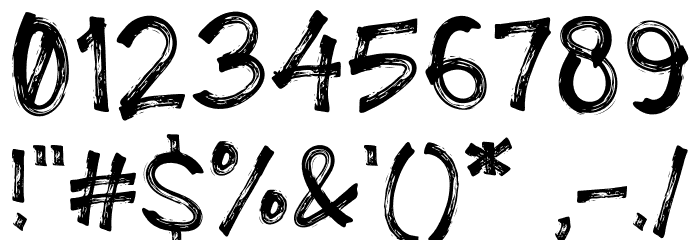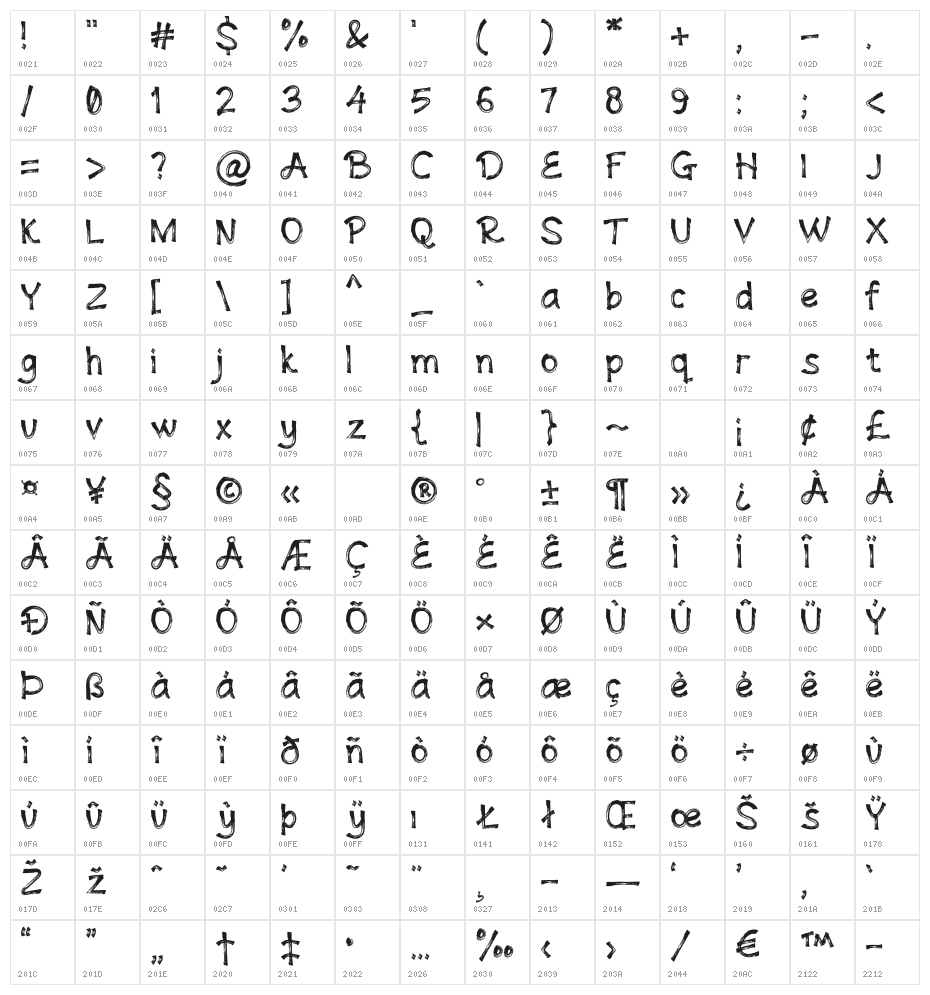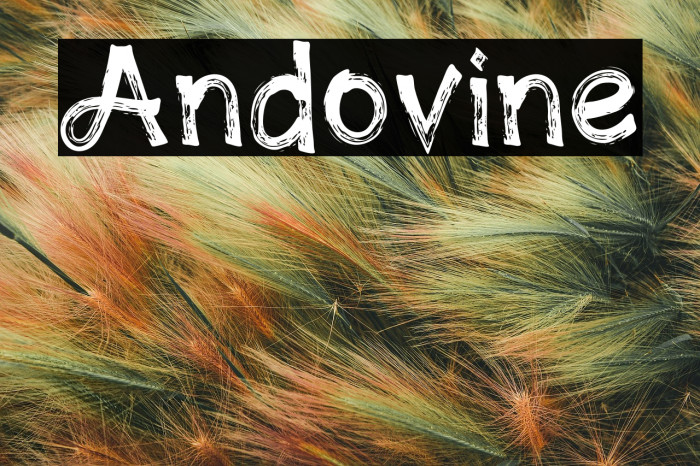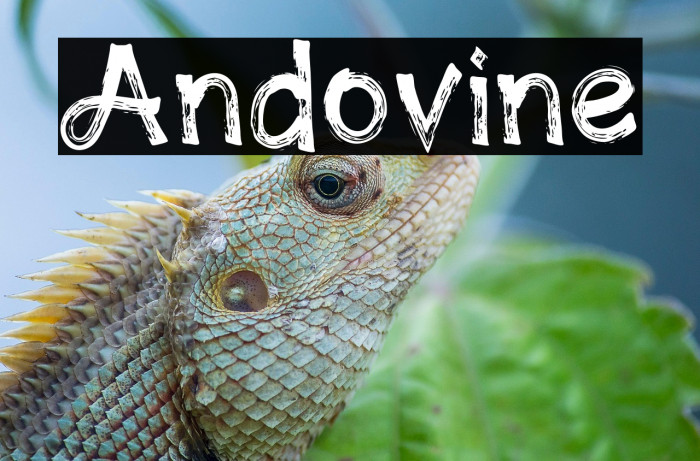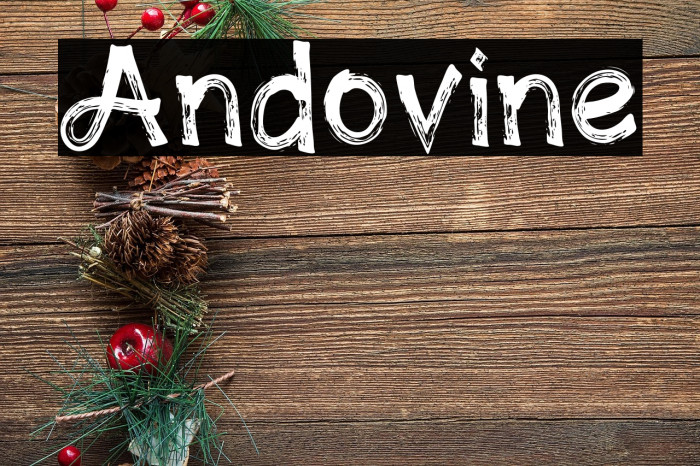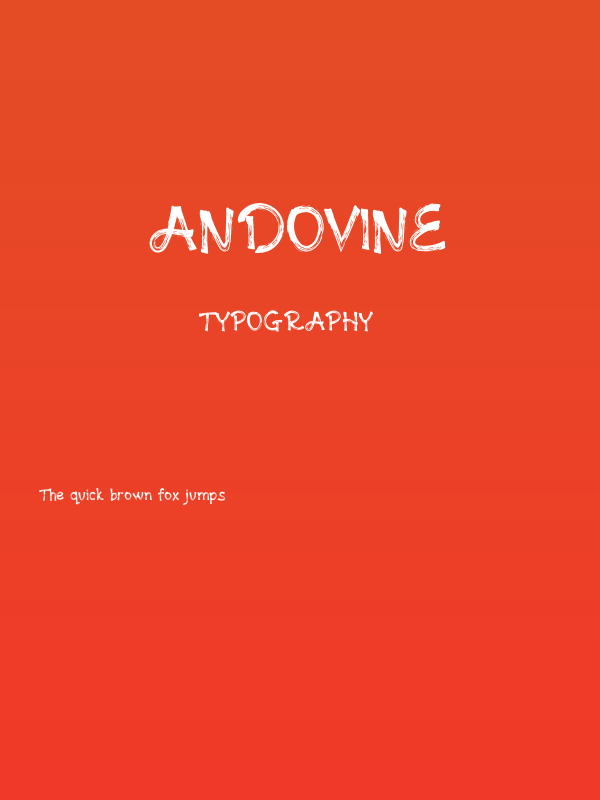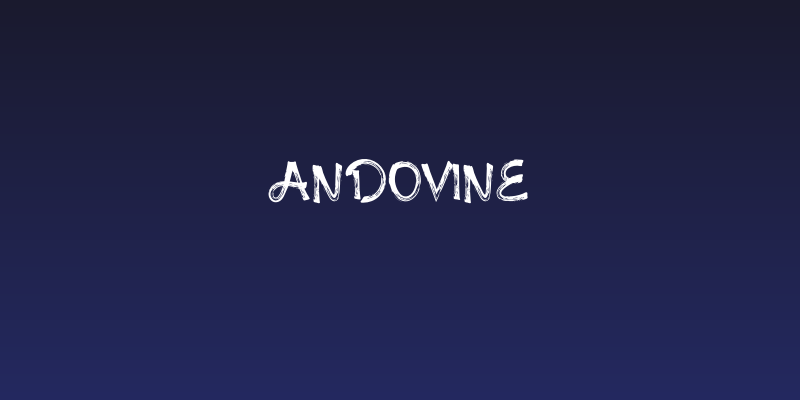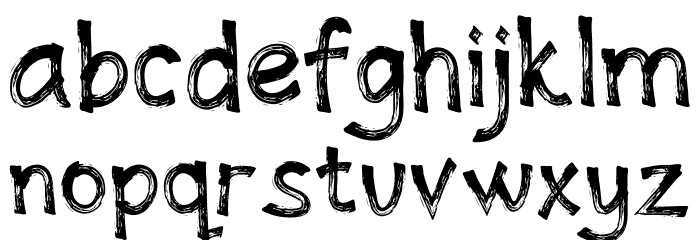
Andovine Font
Andovine Description
This font exhibits a playful and artistic style, characterized by its hand-drawn appearance. The letters have a rough, textured look, reminiscent of brush strokes or chalk on a board. Each character is unique, with varying thicknesses and irregular edges, giving it a dynamic and lively feel. The uppercase and lowercase letters maintain a consistent style, while the numerals and special characters integrate seamlessly into the overall design. This font is ideal for projects that require a casual, creative touch, such as children's books, posters, or artistic branding.
| Proposed Projects | Ideal for children's books, creative posters, artistic branding, and casual invitations. |